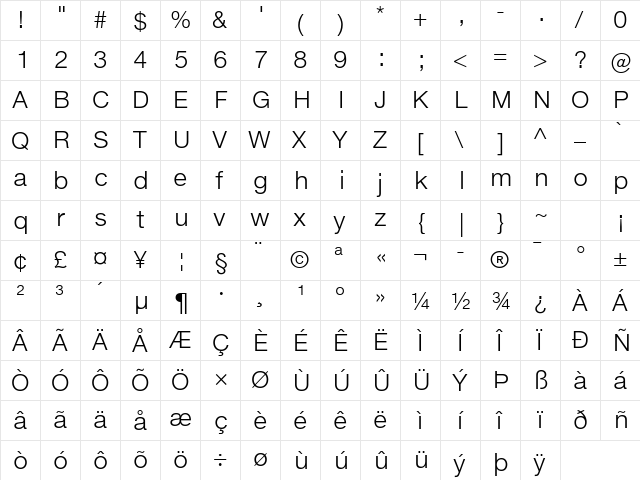
Helvetica Neue eText Pro Light
| Foundry | Linotype GmbH |
| Designer | Linotype Design Studio |
Design Context for Helvetica Neue eText Pro Typeface
Helvetica Neue eText Pro is a composed and adaptable typeface that performs quietly and consistently across a wide range of design contexts. The delicate stroke weight brings airiness and refinement to layouts.